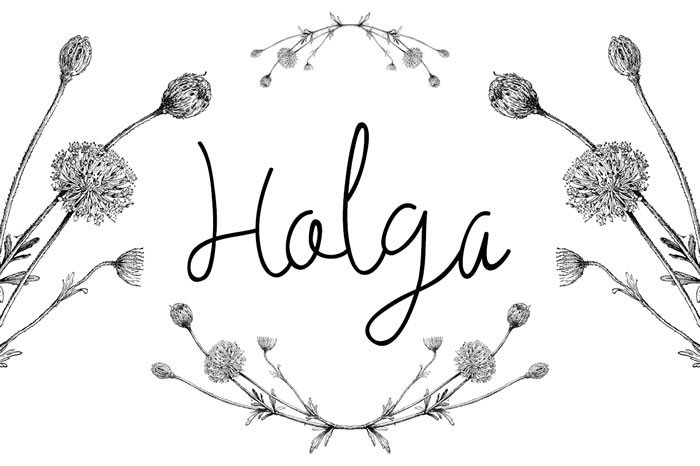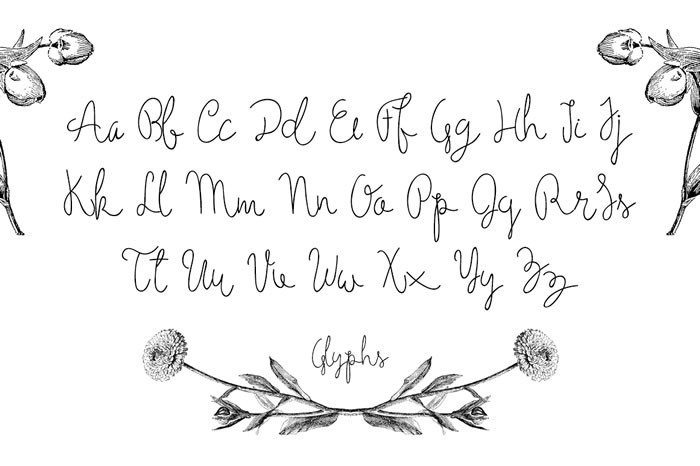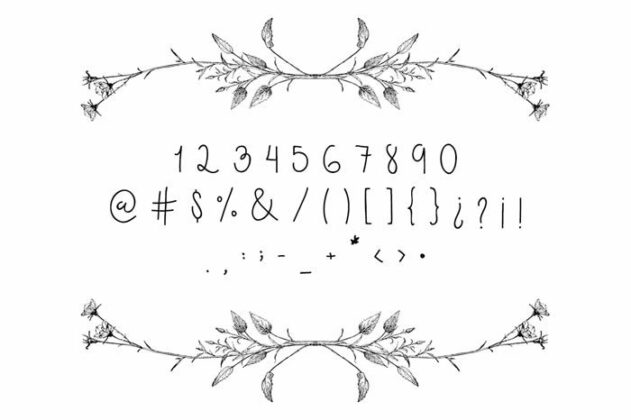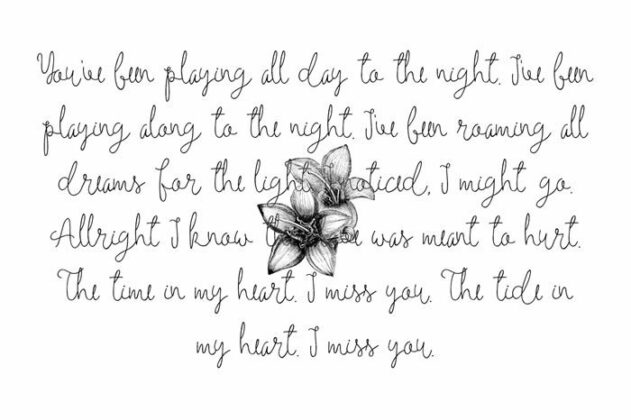
Holga
About Holga Font
Holga script, a cute font with perfect knots on a perfect font for your perfect creation!
This font can be used for logo’s, invitations, posters, quotes, letterheads, birthdays and much more